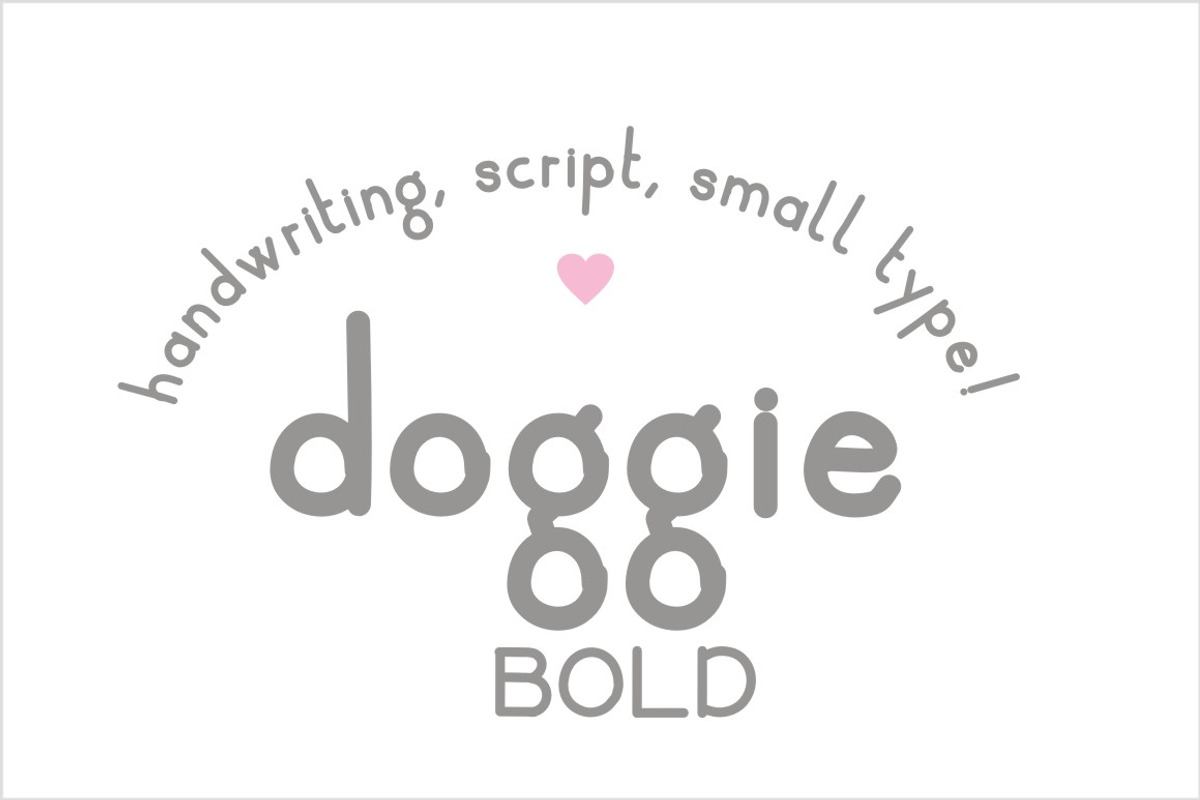
Doggie Bold Font Free Download
Add a dose of cuteness and bold character to your designs with Doggie Bold Font Free Download. This chunky, playful typeface is perfect for pet-related branding, kids' merchandise, fun logos, toy packaging, and cheerful social media graphics. With its bubbly shapes and friendly vibe, Doggie Bold brings instant charm and approachability to any project.
Designed to be eye-catching yet readable, this font includes uppercase and lowercase letters, numbers, and basic punctuation—giving you the flexibility to test it in a wide range of creative mockups. Whether you're working on a puppy-themed flyer or a playful product label, Doggie Bold is a standout choice.